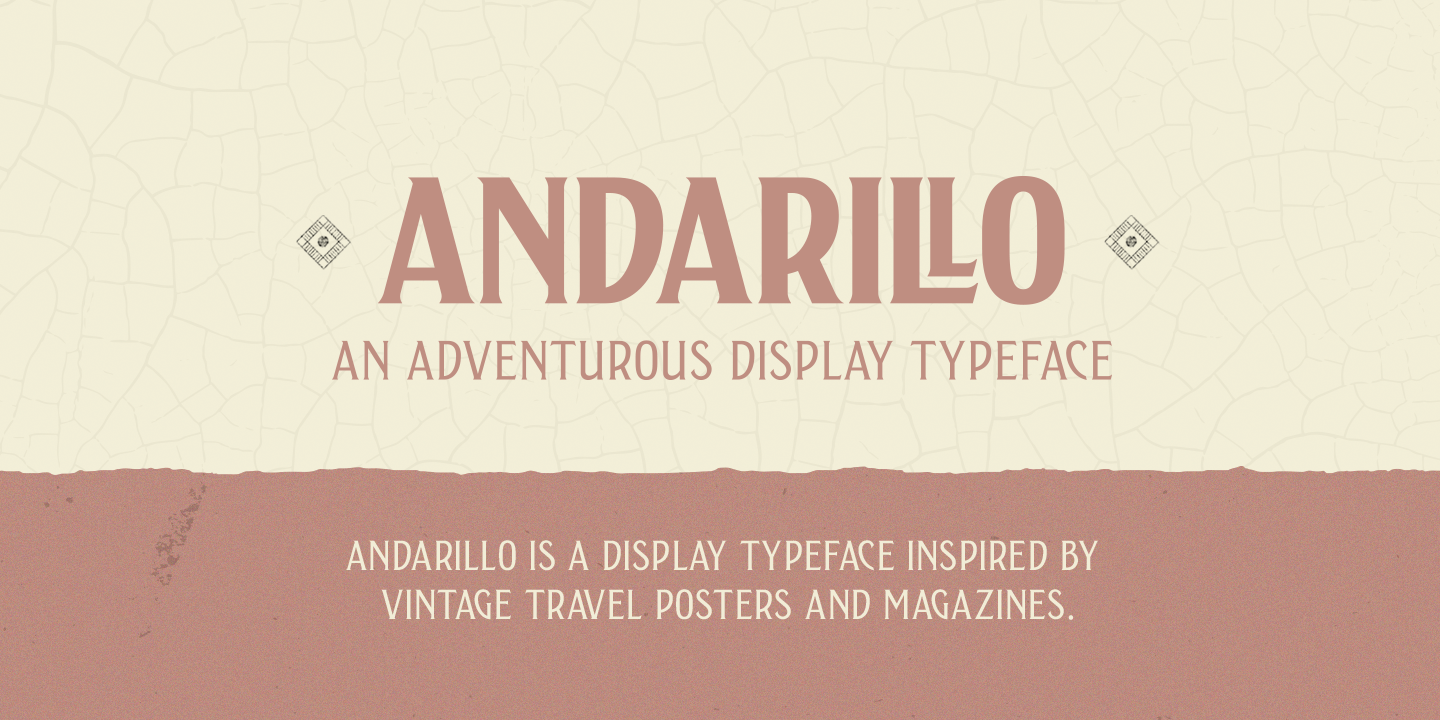
Andarillo Font is ideal for Spanish cultural centers, Latin American travel agencies, traditional tapas restaurants, flamenco dance studios, Hispanic heritage museums, authentic Spanish language schools, and vibrant Latino festival celebrations. This spirited typeface captures the passionate essence of Spanish culture and wandering spirit, bringing authentic Hispanic warmth and cultural pride to any design project celebrating Spanish heritage and Latin traditions.
What makes Andarillo Font exciting is its captivating fusion of Spanish passion and wandering adventure spirit that perfectly embodies the cultural richness and exploratory nature of Hispanic traditions. The font features flowing letterforms with flamenco-inspired curves and adventurous character variations that evoke both the rhythmic energy of Spanish guitar and the free-spirited nature of cultural exploration. Its passionate character creates emotional connection while maintaining excellent readability for both cultural documentation and Spanish tourism applications.
The Andarillo Font family includes regular and bold weights with complementary script variations and Spanish ornamental elements. The character set features Hispanic ligatures, cultural symbols, Spanish alternates, and traditional decorative accents that enhance the font's authentic appeal. Extended character support includes Spanish diacritics and Latin American cultural symbols for accurate representation in Hispanic heritage and tourism applications.
Whether you're designing Spanish cultural brands, creating Latino celebration materials, or developing Hispanic heritage content, Andarillo Font Free Download provides exceptional cultural authenticity and versatility. This passionate typeface transforms ordinary text into meaningful cultural experiences that celebrate Spanish traditions while establishing respected brand recognition in competitive Hispanic cultural tourism and Latin heritage marketplaces.